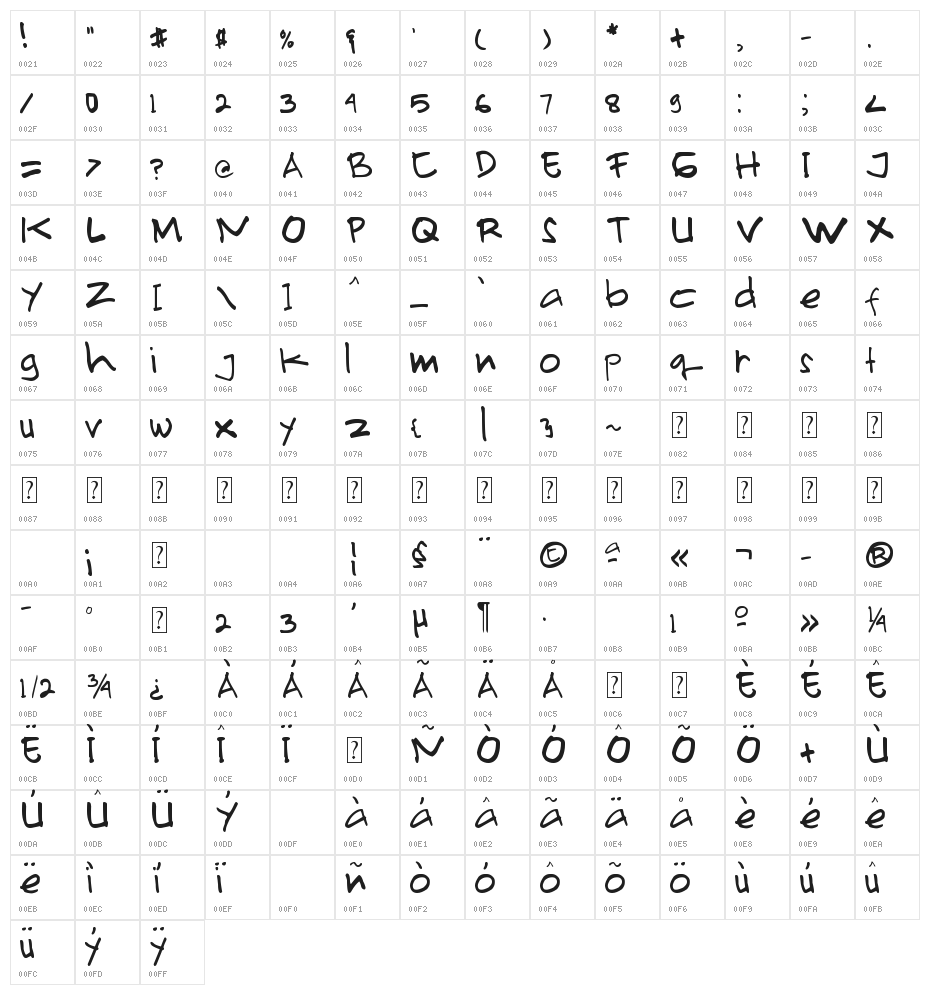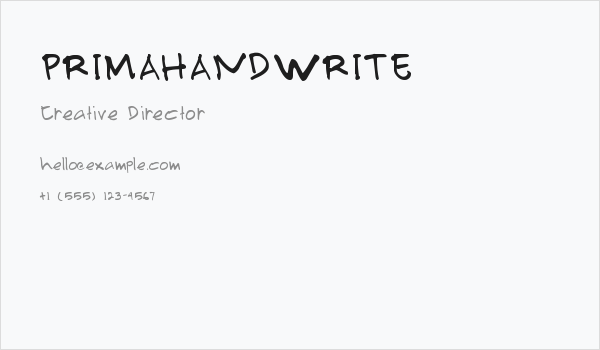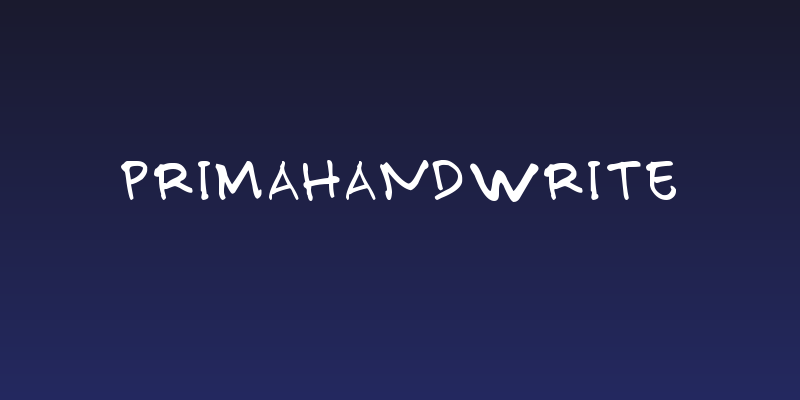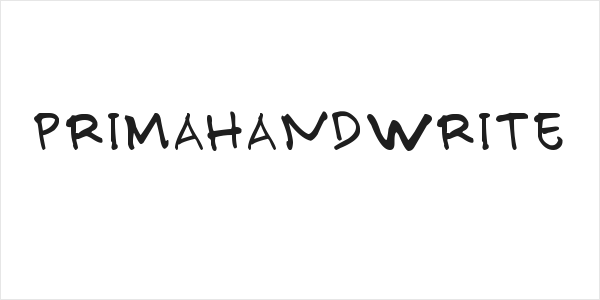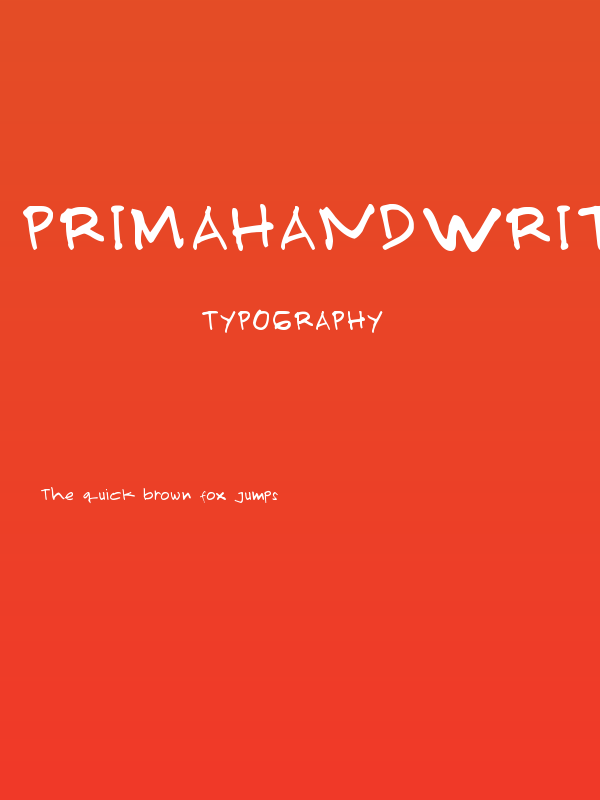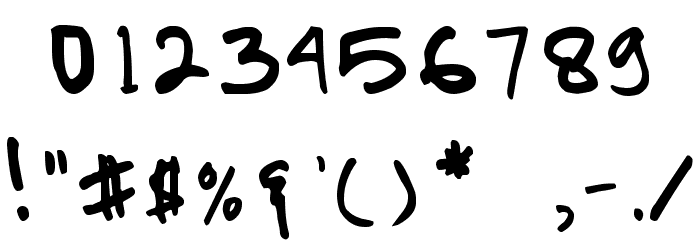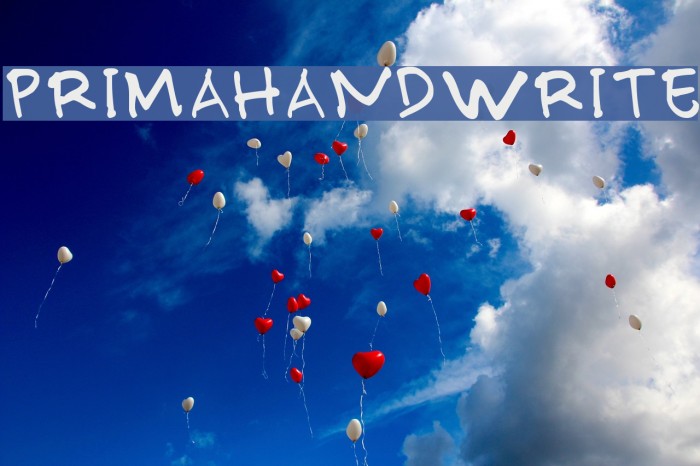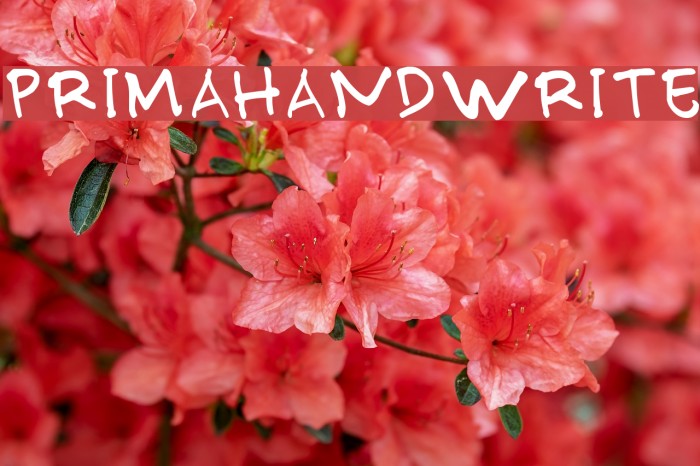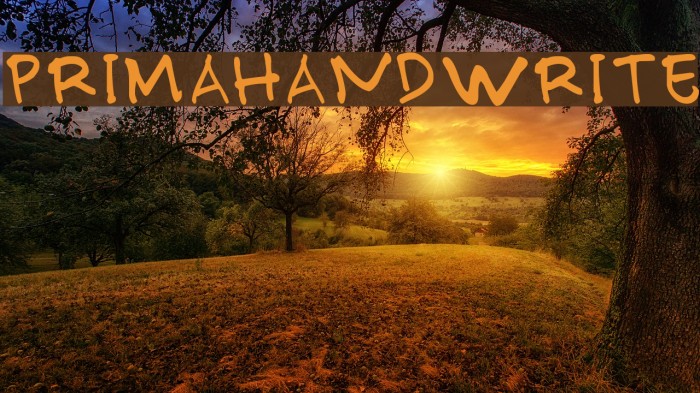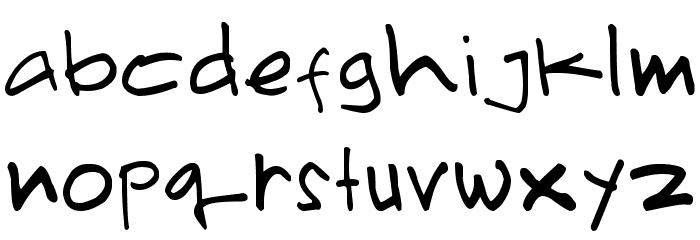
PRIMAHANDWRITE Font
PRIMAHANDWRITE Description
This font features a playful and casual handwritten style, characterized by its uneven strokes and organic flow. The letters have a natural, freeform appearance, with slight variations in size and shape that mimic authentic handwriting. The uppercase and lowercase letters maintain a consistent style, with rounded edges and a slightly tilted orientation. The numerals and special characters follow the same informal aesthetic, adding to the font's cohesive look. This font exudes a friendly and approachable vibe, making it ideal for projects that require a personal touch.
| Proposed Projects | Ideal for greeting cards, personal notes, casual invitations, and playful branding projects. |